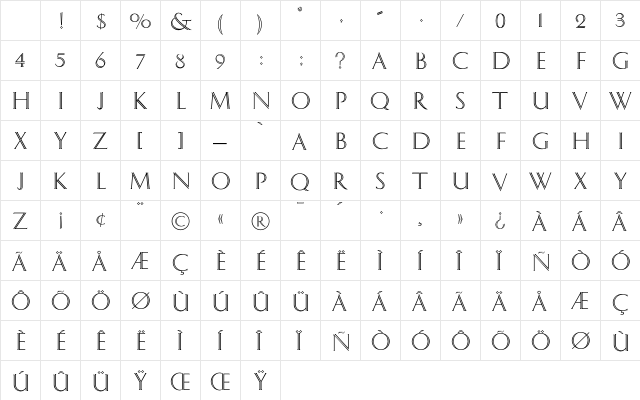
Complete Delphian CG Regular glyph index. Displaying only characters natively supported by Delphian CG Regular font.
Delphian CG is a composed and adaptable typeface that performs quietly and consistently across a wide range of design contexts.